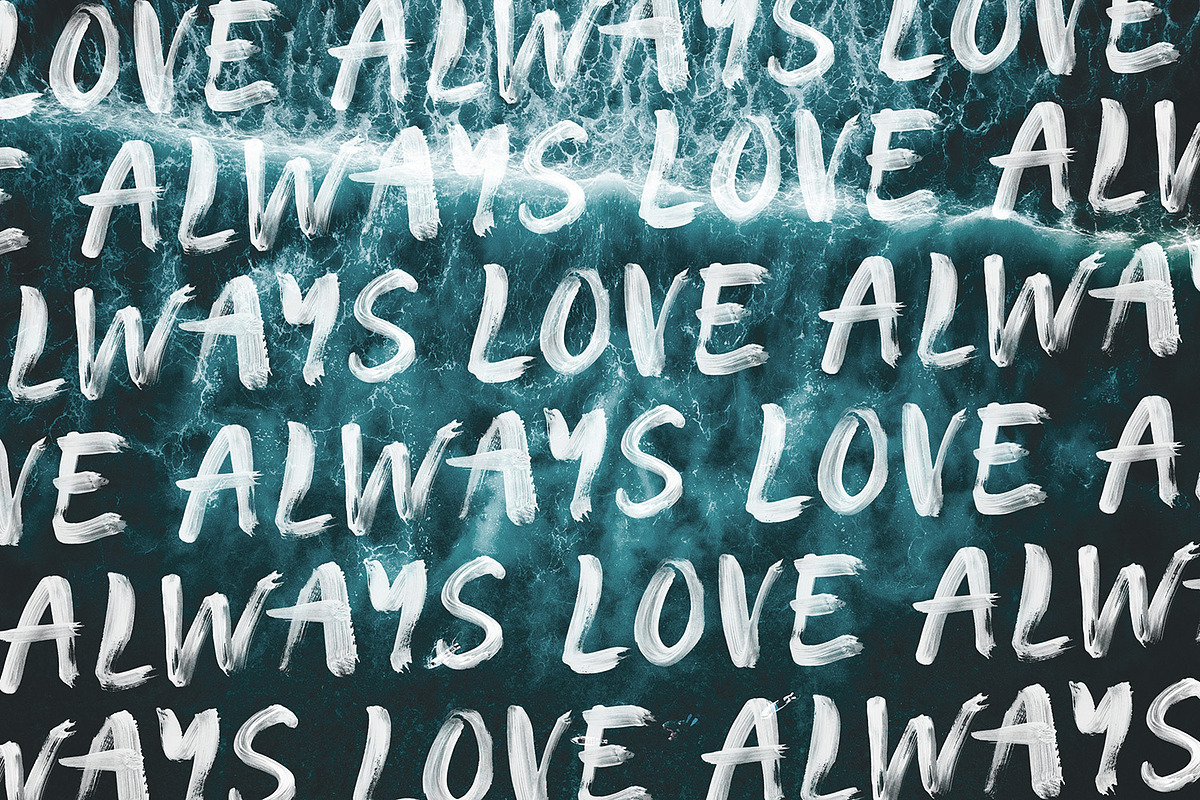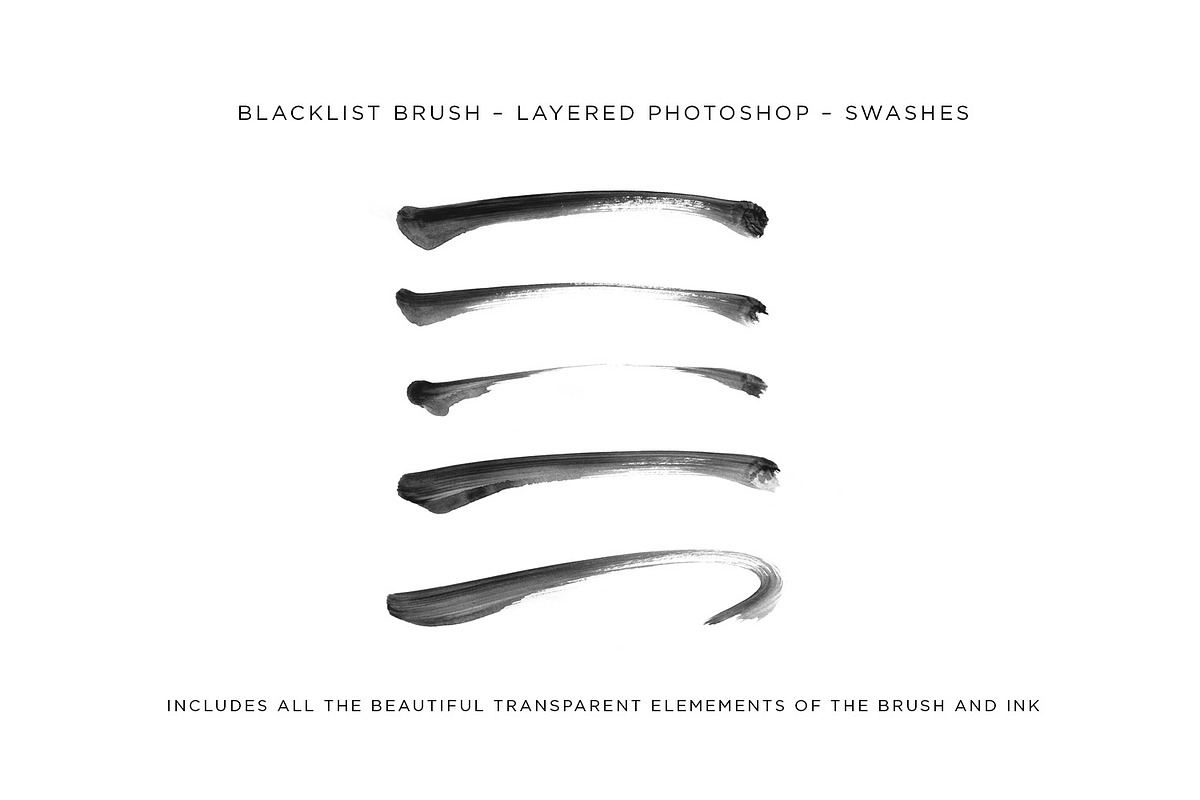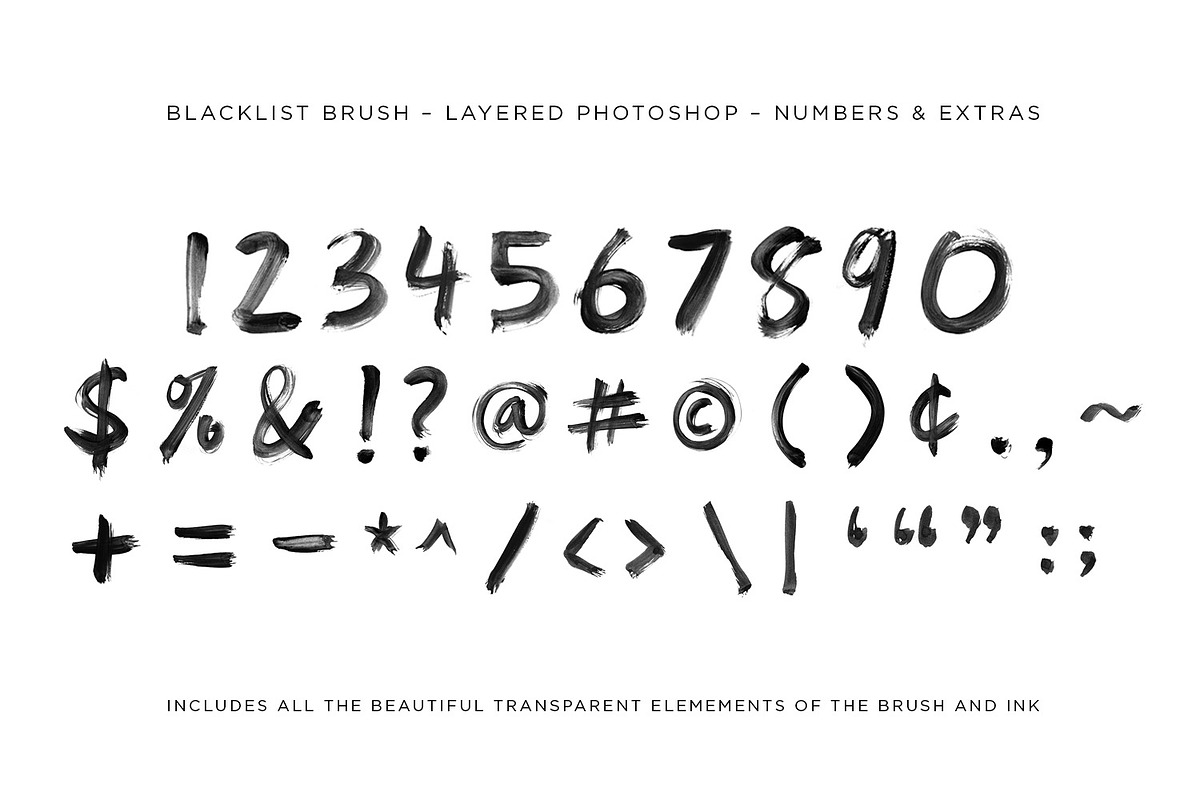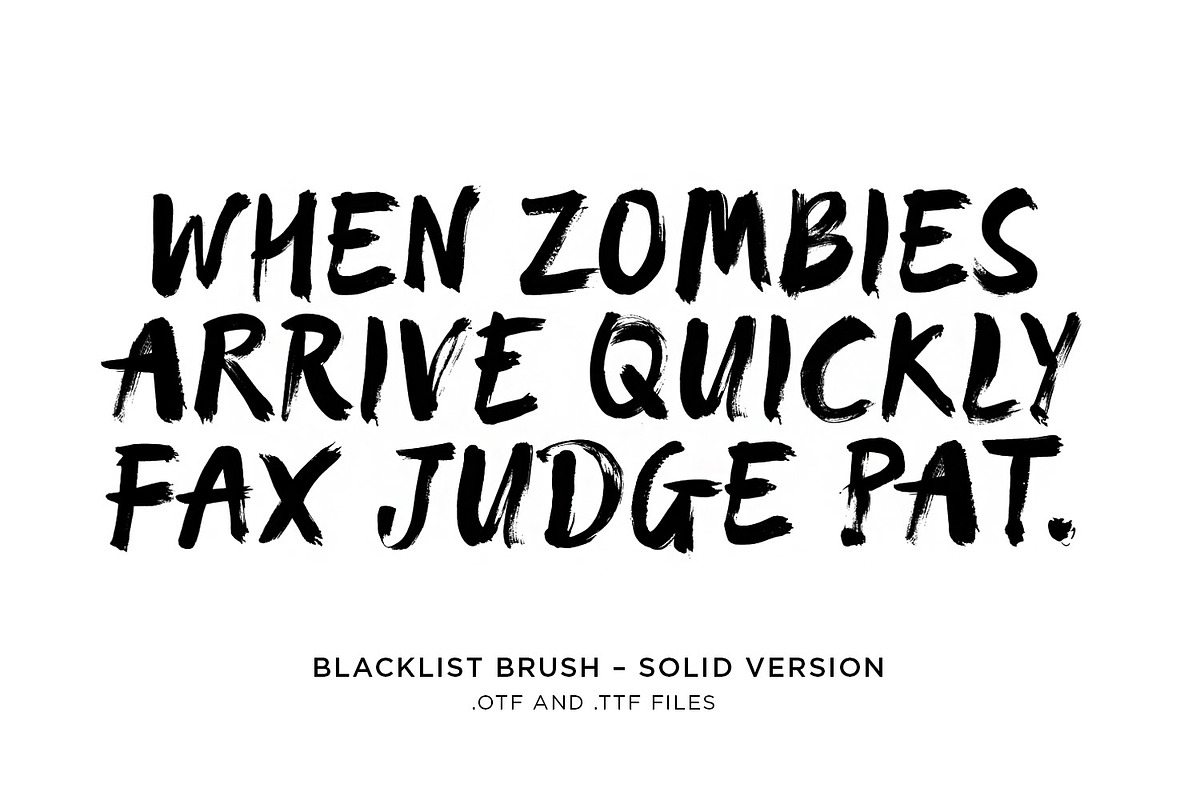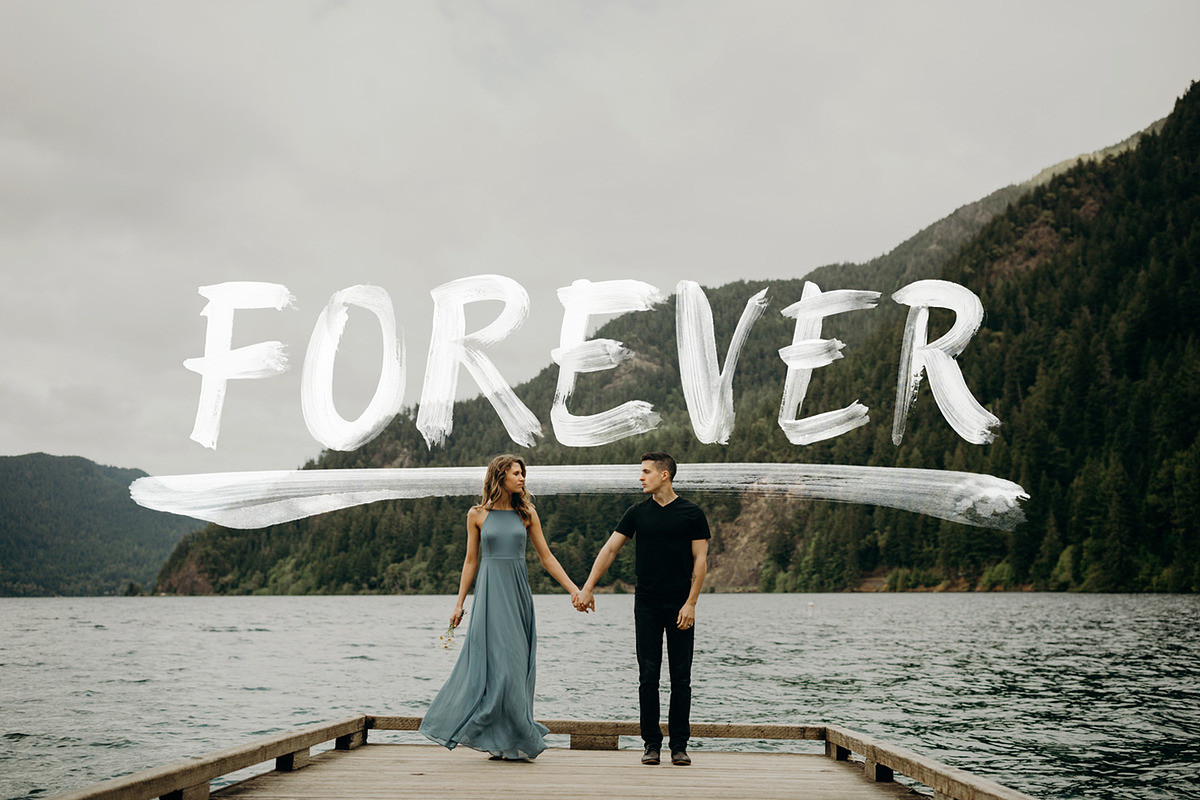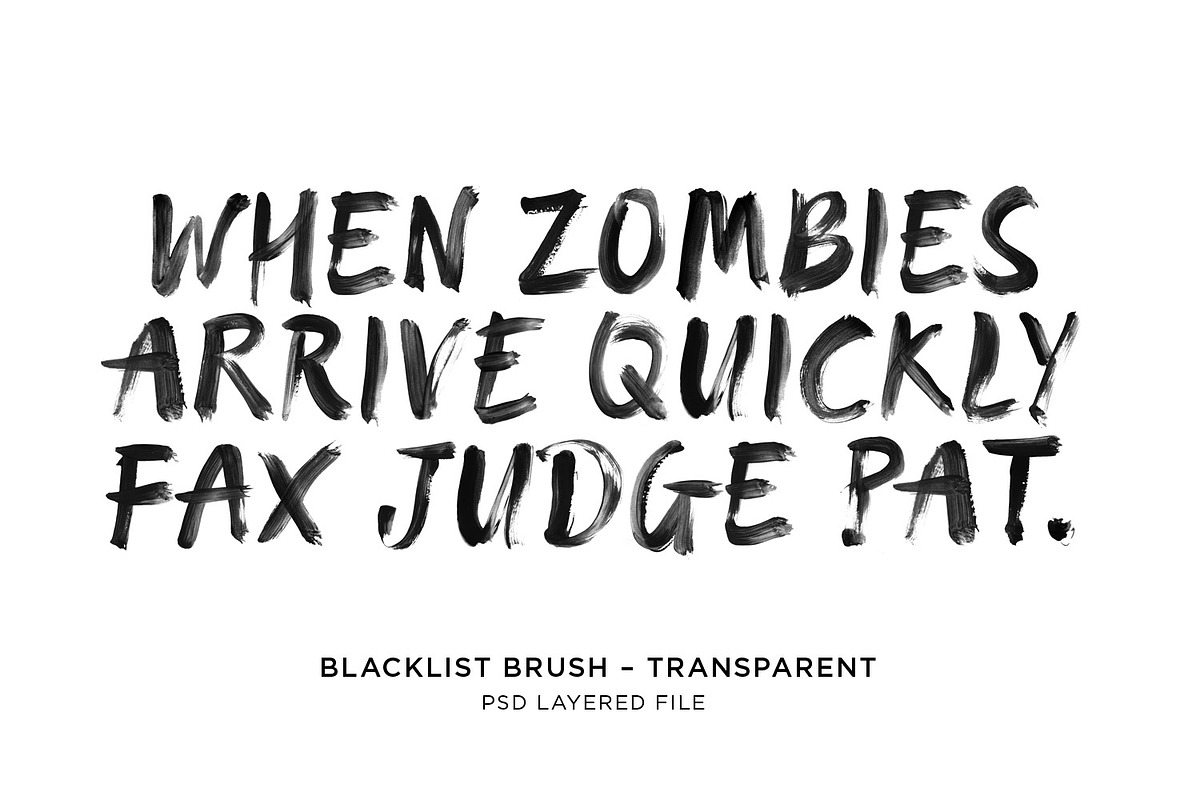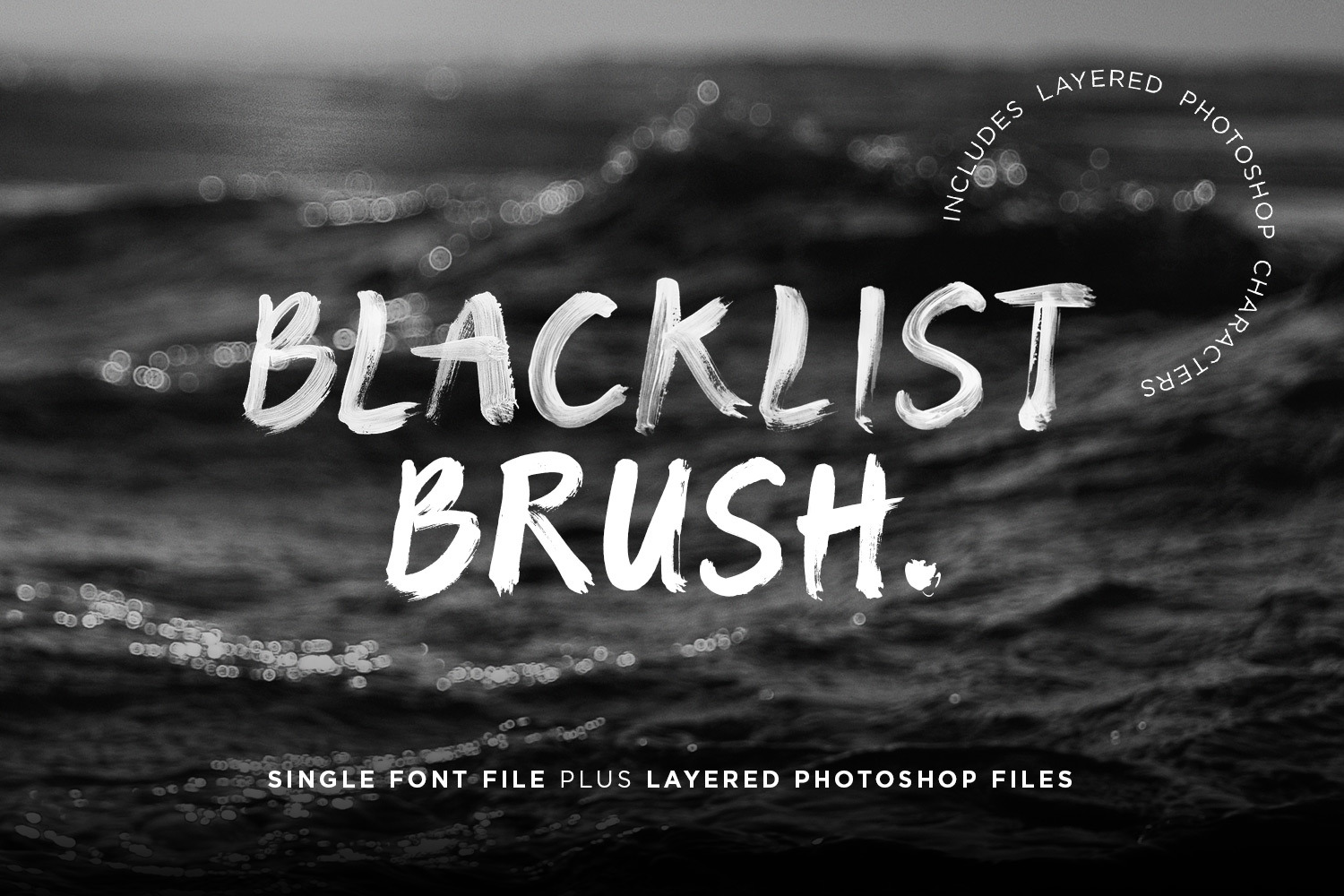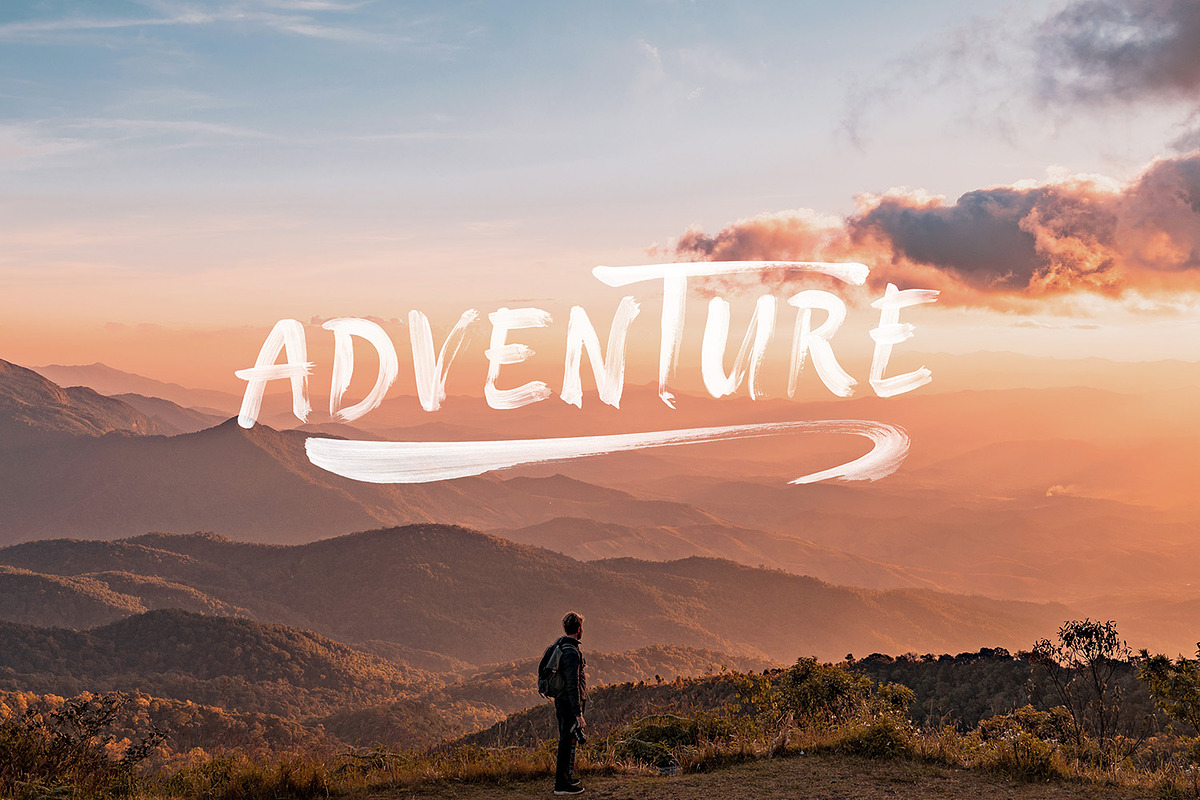
BLACKLIST BRUSH – FONT & LAYERED PSD
Introducing Blacklist Brush – The first ever typeface created from our classic hand lettering style in brush and ink. Blacklist Brush is completely hand drawn and created to imitate a natural bold, expressive statement font. I have been looking at creating a set of typefaces that replicates how we design here, and so proud that this is our first release.
Each letter also comes with a second alternate letter to give you a more natural approach to your words. Also included are extra characters and numbers.
This version also comes with the layered PSD files with the original letter scans so you can retain the beautiful natural transparency of the brush and ink.